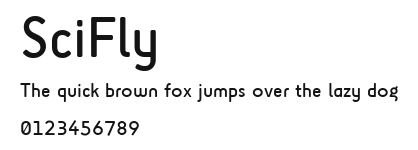
• Font Name: SciFly
• Full Font Name: SciFly-Sans
• Designer: Tomi Haaparanta
• Manufacturer: Suomi Type Foundry, Suomi Finland
About SciFly.ttf
SciFly.ttf is a modern, elegant sans-serif font designed for ultimate readability and visual harmony. Perfect for branding, headlines, web design, and print materials.